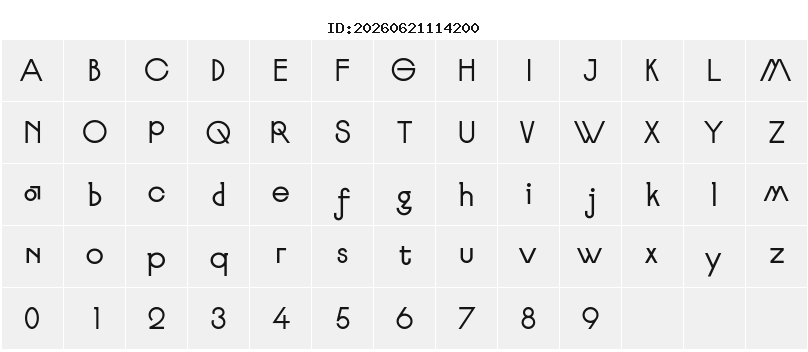
• Font Name: Sense Font1.0
• Full Font Name: Sense Font1.0
• Designer: ZhenglinWang,HuiWei
About Sense Font1.0.ttf
Sense Font1.0.ttf is a modern, elegant sans-serif font designed for ultimate readability and visual harmony. Perfect for branding, headlines, web design, and print materials.